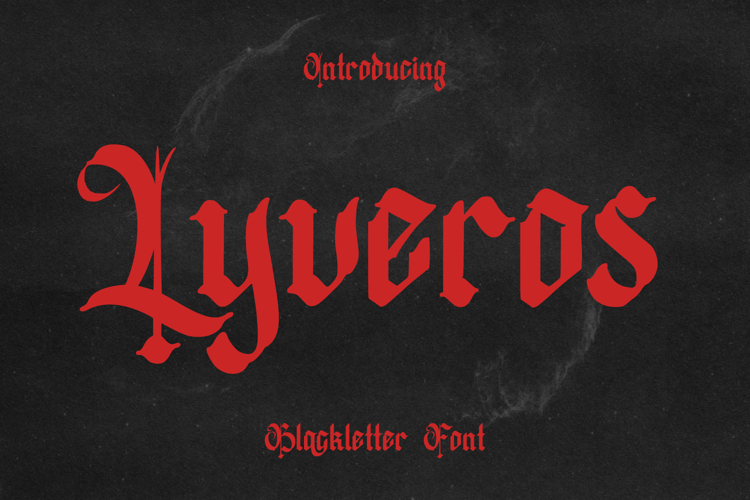
Every letter tells a story of strength and mystery. Lyveros was born from the grandeur of medieval calligraphy, then refined with a bold modern touch. The result is a blackletter font that embodies elegance, power, and timeless character.
With its sharp details and commanding presence, Lyveros delivers a gothic yet artistic atmosphere, making it the perfect choice for designers who want to create works that stand out with bold, dramatic flair.